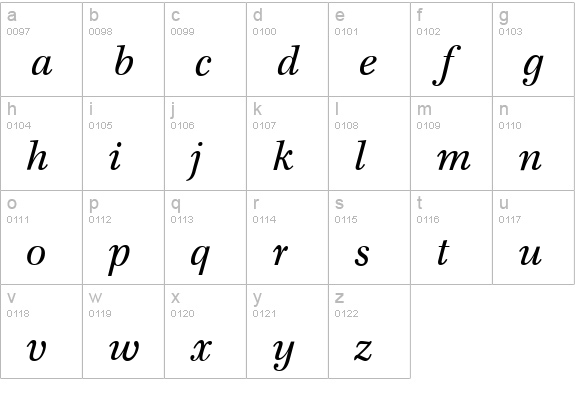
F820-Roman-Italic is a distinctive, italic variant in the F820 typeface family \xE2\x80\x94 well suited to design and typography projects.
Introducing the stunning F820-Roman-Italic font, a timeless and elegant typeface that exudes sophistication and style. This font features sleek and fluid lines with a classic italic design, making it perfect for adding a touch of class to any project. The F820-Roman-Italic font is versatile and can be used for a wide range of design applications, from branding and advertising to editorial and web design. Its legibility and readability make it suitable for both display and body text, ensuring that your message is conveyed with clarity and finesse. Best of all, the F820-Roman-Italic font is available for free download at FontsMarket.com, making it accessible to designers and creatives of all levels. Don't miss out on the opportunity to enhance your projects with this exquisite font - download it today and elevate your design to the next level!